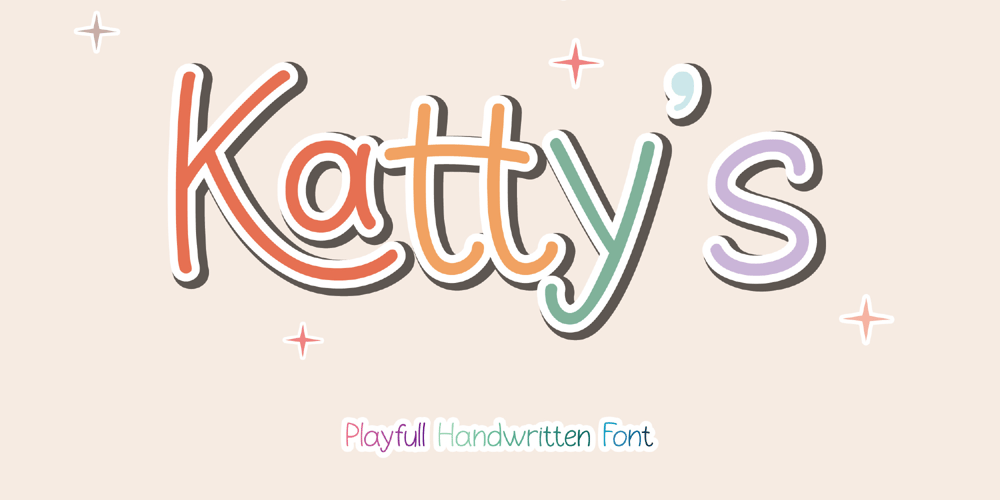
Kattys Font Family was designed by Achmad Yani and published by Flawlessandco. Kattys contains 1 styles and family package options. Introducing “Kattys” – a delightful and playful handwritten font that adds a touch of whimsy to any project. An Original typeface that suitable for any graphic designs such as branding materials, t-shirt, print, business cards, logo, poster, t-shirt, photography, quotes .etcThis font support for some multilingual. Modern Sweet Retro that contains uppercase A-Z and lowercase a-z, alternate character, numbers 0-9, and some punctuation.If you need help, just write me! Thanks so much for checking out my shop!